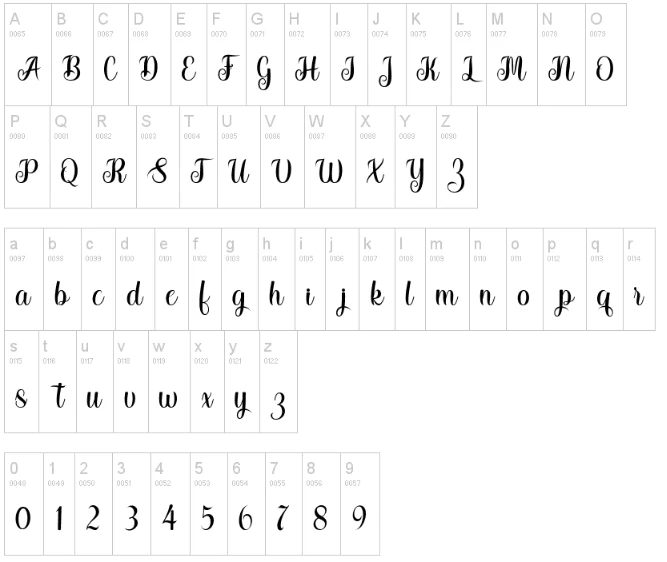
Stayland is a contemporary script typeface. It has a bold yet beautiful appearance that can help your design stand out. Letterfresh created this beautiful font and shared it with the world. This font belongs to the Regular subfamily. It contains a variety of different alternates that you may utilize by heading to the glyphs panel in Adobe Illustrator or Photoshop. Converting the gorgeous typeface to a web font is simple.
Logos, wedding invites, titles, signatures, t-shirts, letterheads, signboards, labels, posters, and much more can all be done with it! Stayland is also ideal for branding projects, homeware designs, product packaging, and as a classy text overlay on any background image. The font also goes with all types of fancy work. It does go with almost every colour, from light to dark. The font also might be utilized for any writing purposes or headings for its bold and beautiful texture.
NameStayland
StyleScript, Calligraphy
DesignerLetterfresh